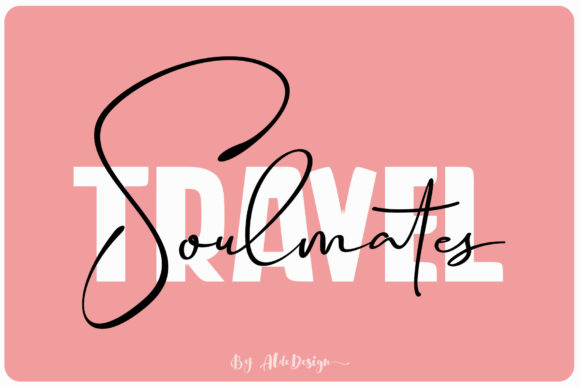
The Travel Soulmates is a font duo with a simple and classy taste. It includes a signature, and a bold sans version.
This classy duo is easy to use and has a great readability. It can be used for watermark on photography, signature logos, album covers, business cards, quotes, and many other design projects.